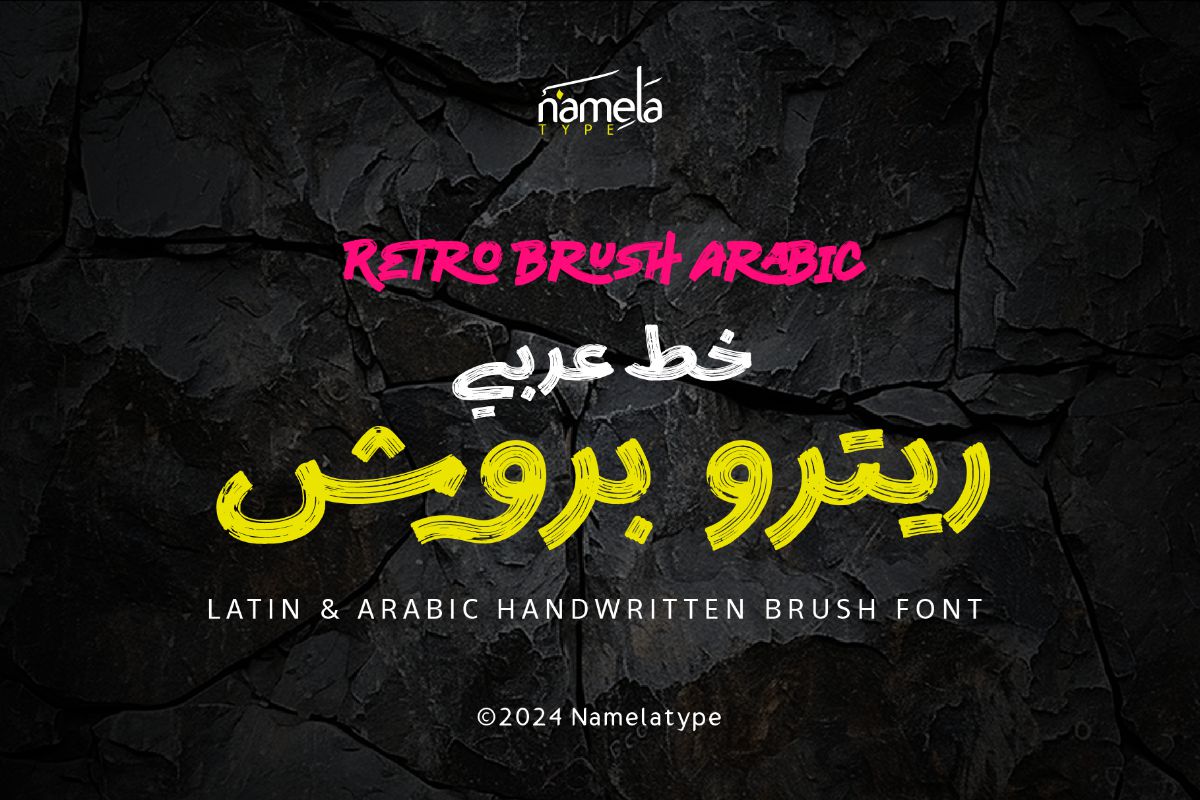
Retro Brush Arabic Regular
Retro Brush Arabic Font - An Expressive Handwritten Brush Typeface Branding & Apps Arabic typography carries a long and sophisticated tradition—from classical calligraphy to modern digital systems. But when that heritage meets the raw energy of vintage lettering, something entirely new emerges. Retro Brush Arabic Expressive Handwritten Brush Font is exactly that intersection: a bold brush font that redefines expressive Arabic design. This distinctive Arabic font translates the gritty texture o